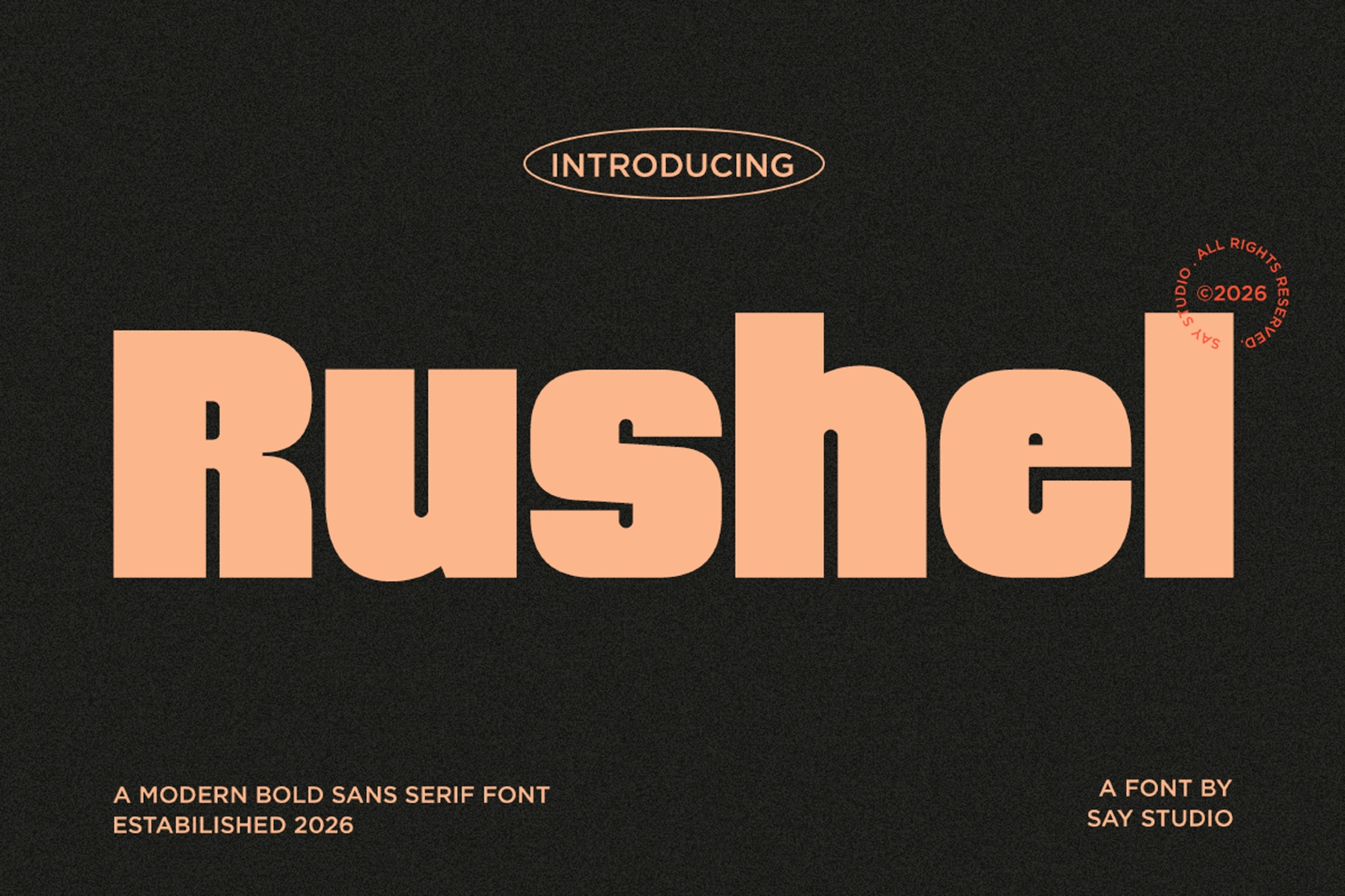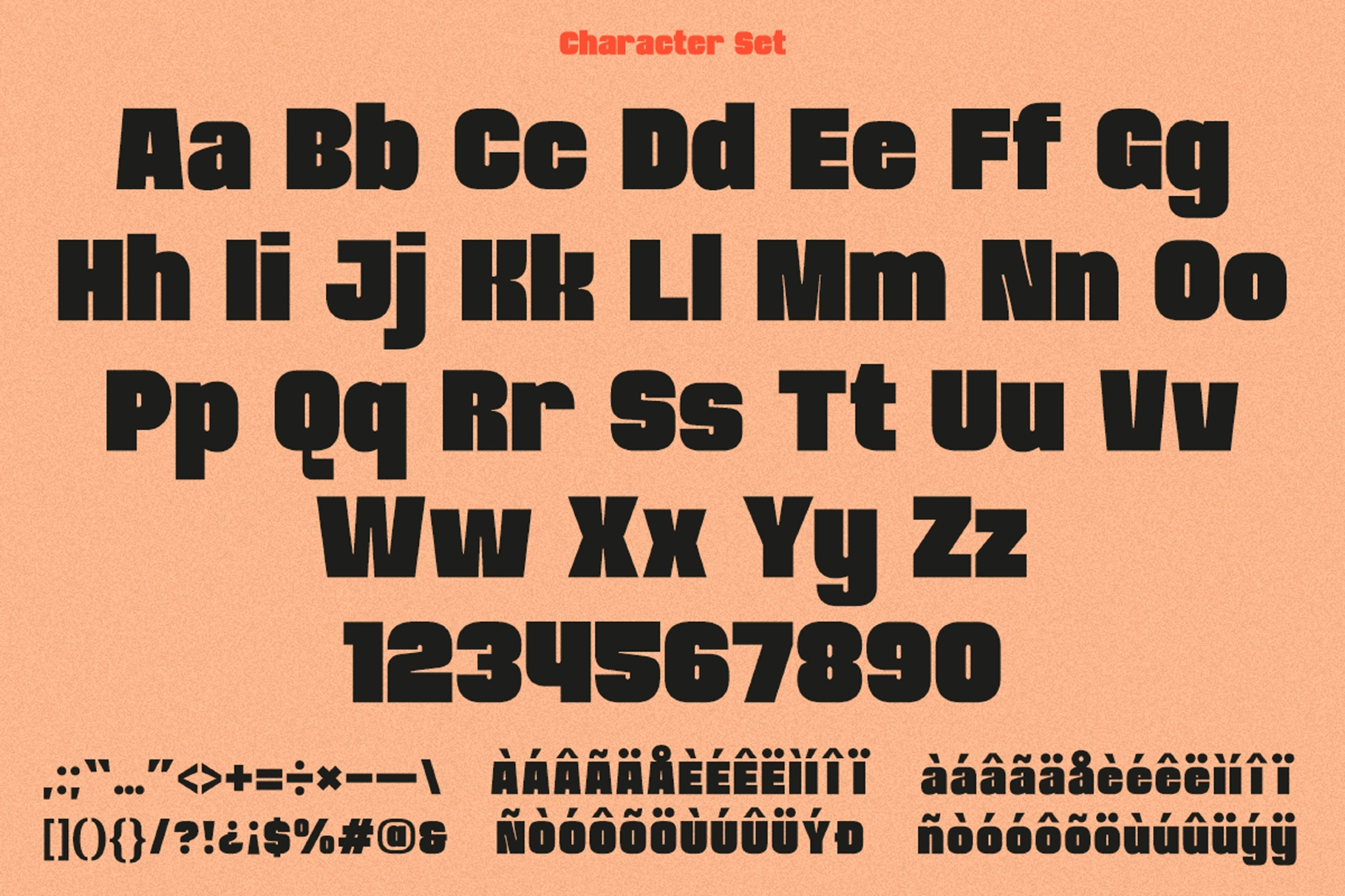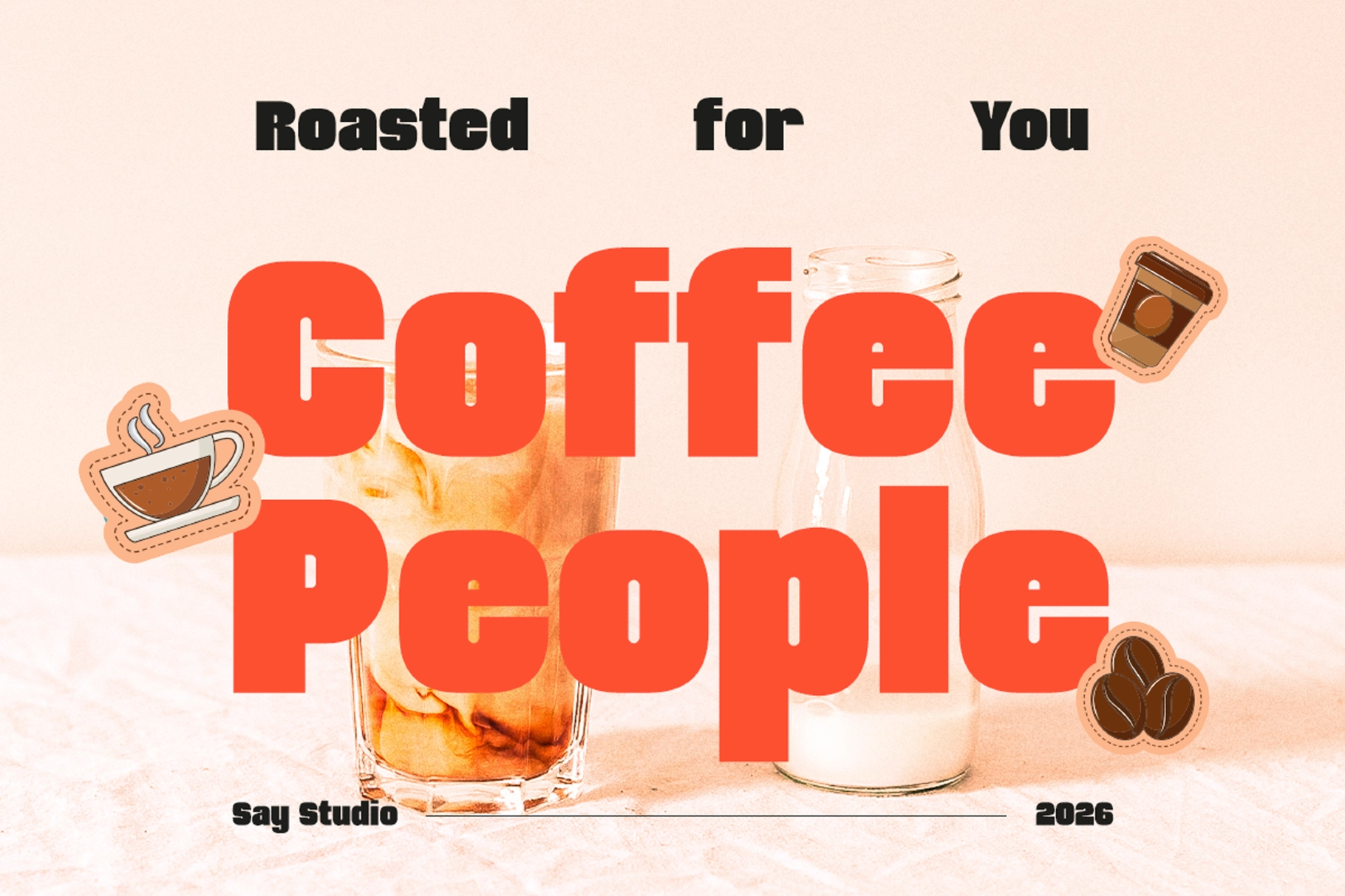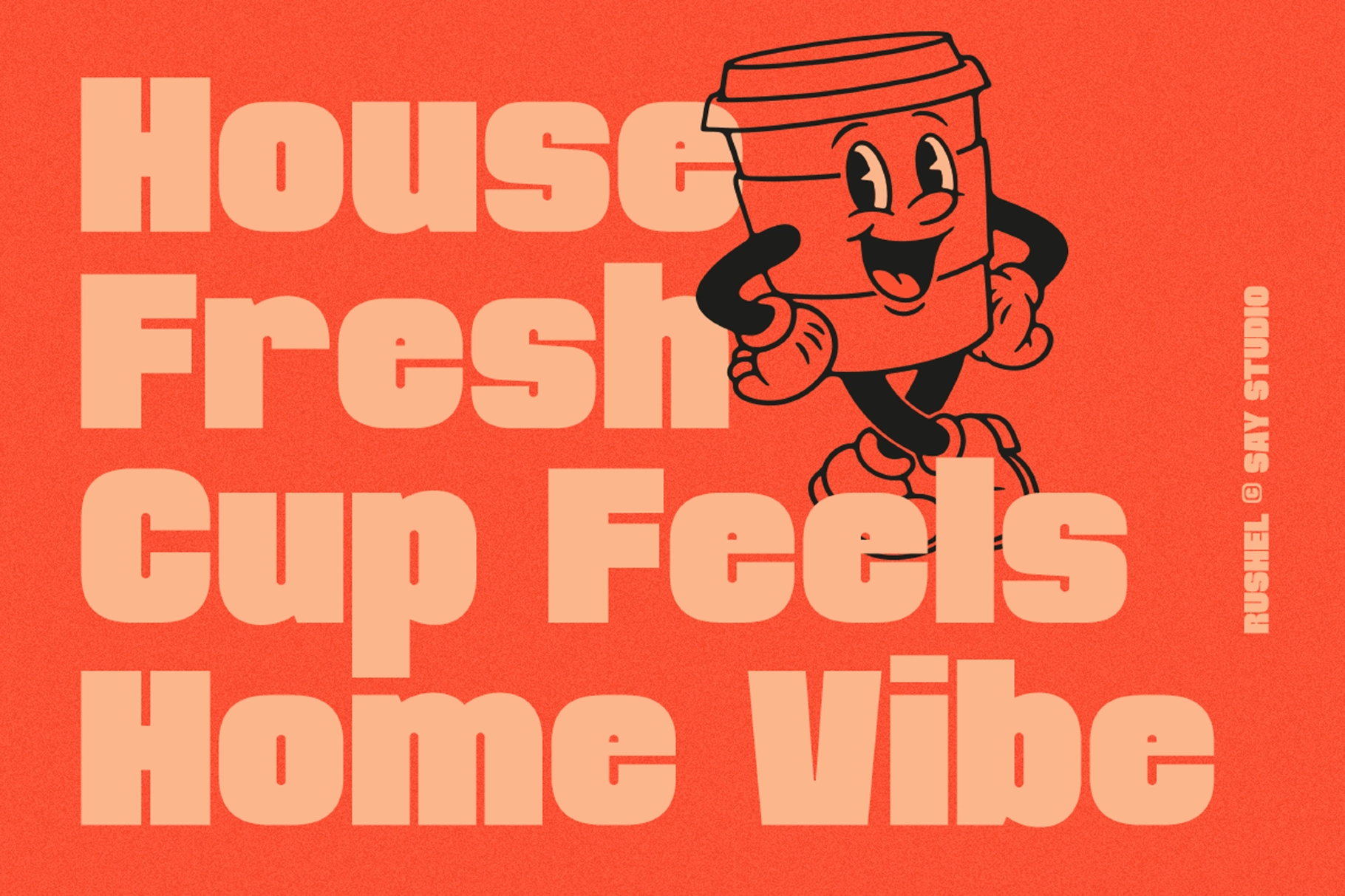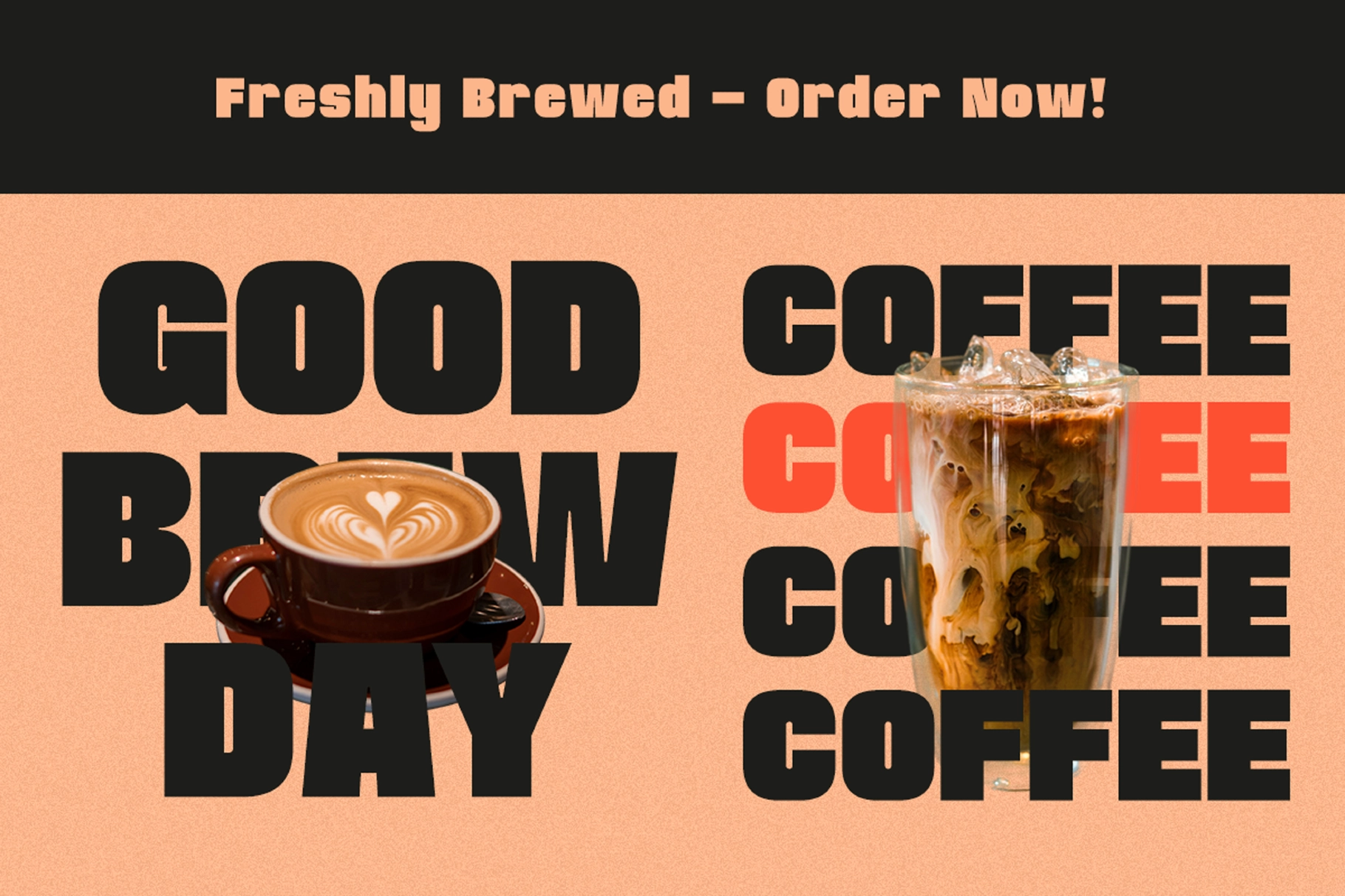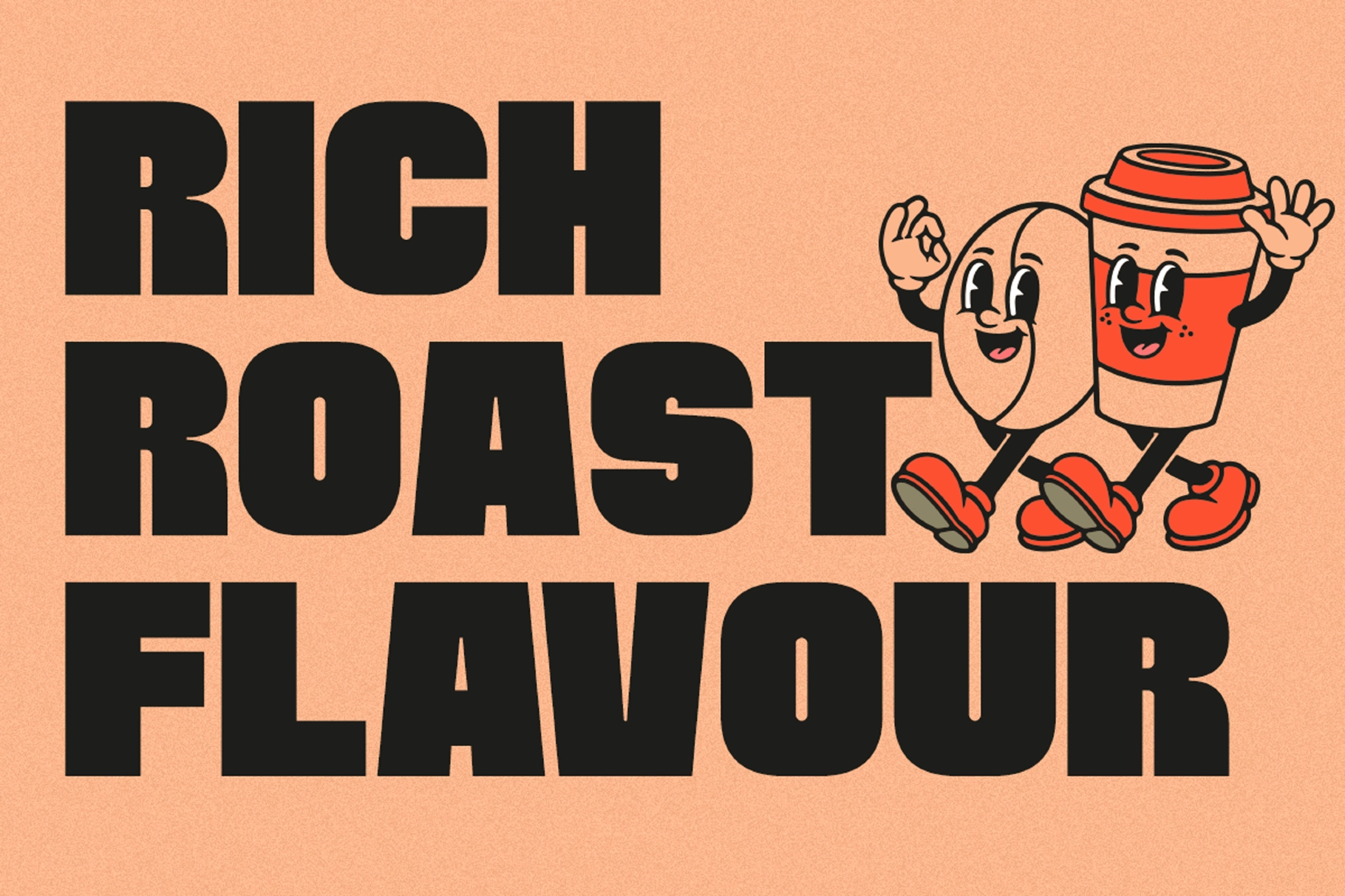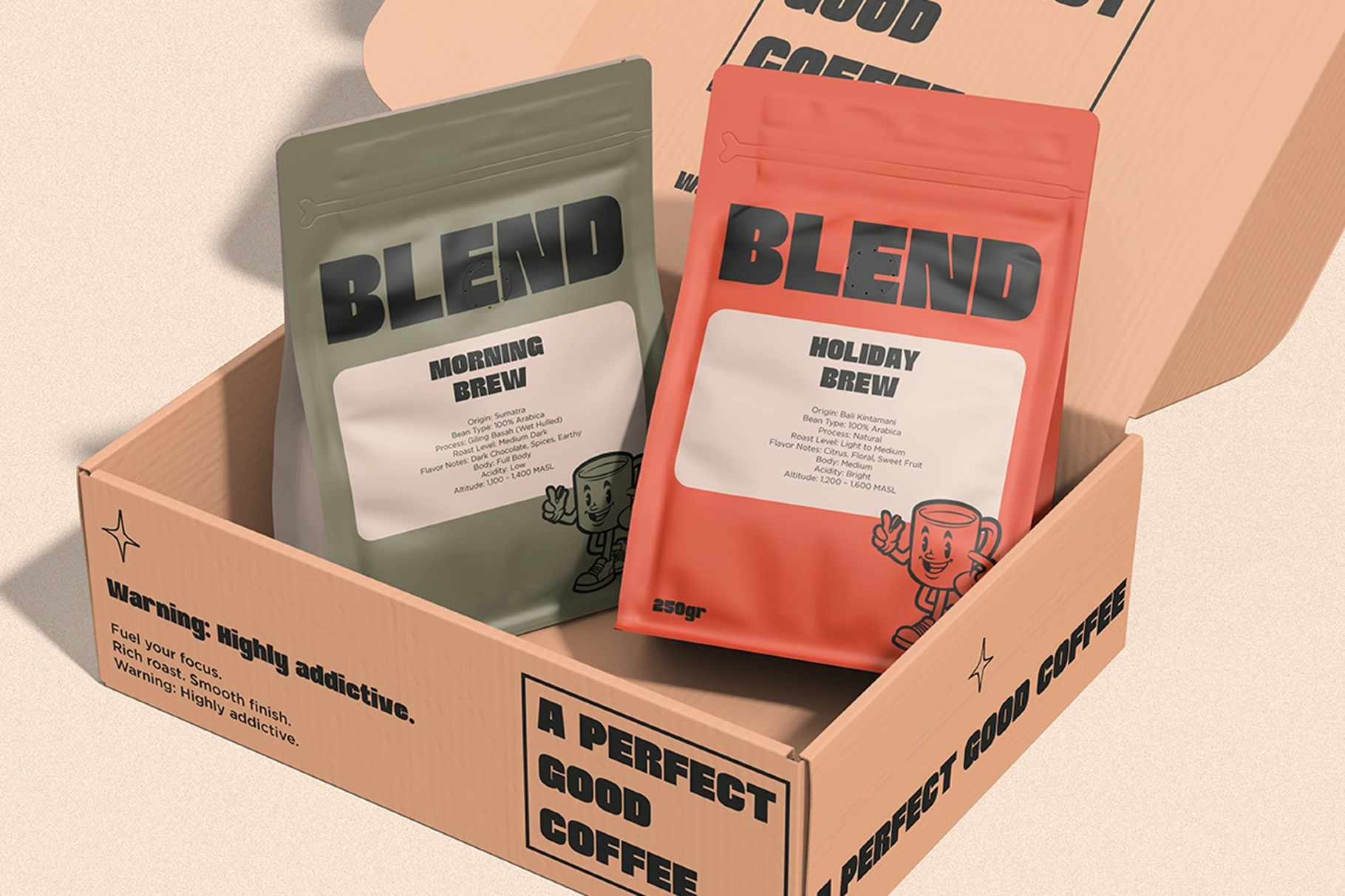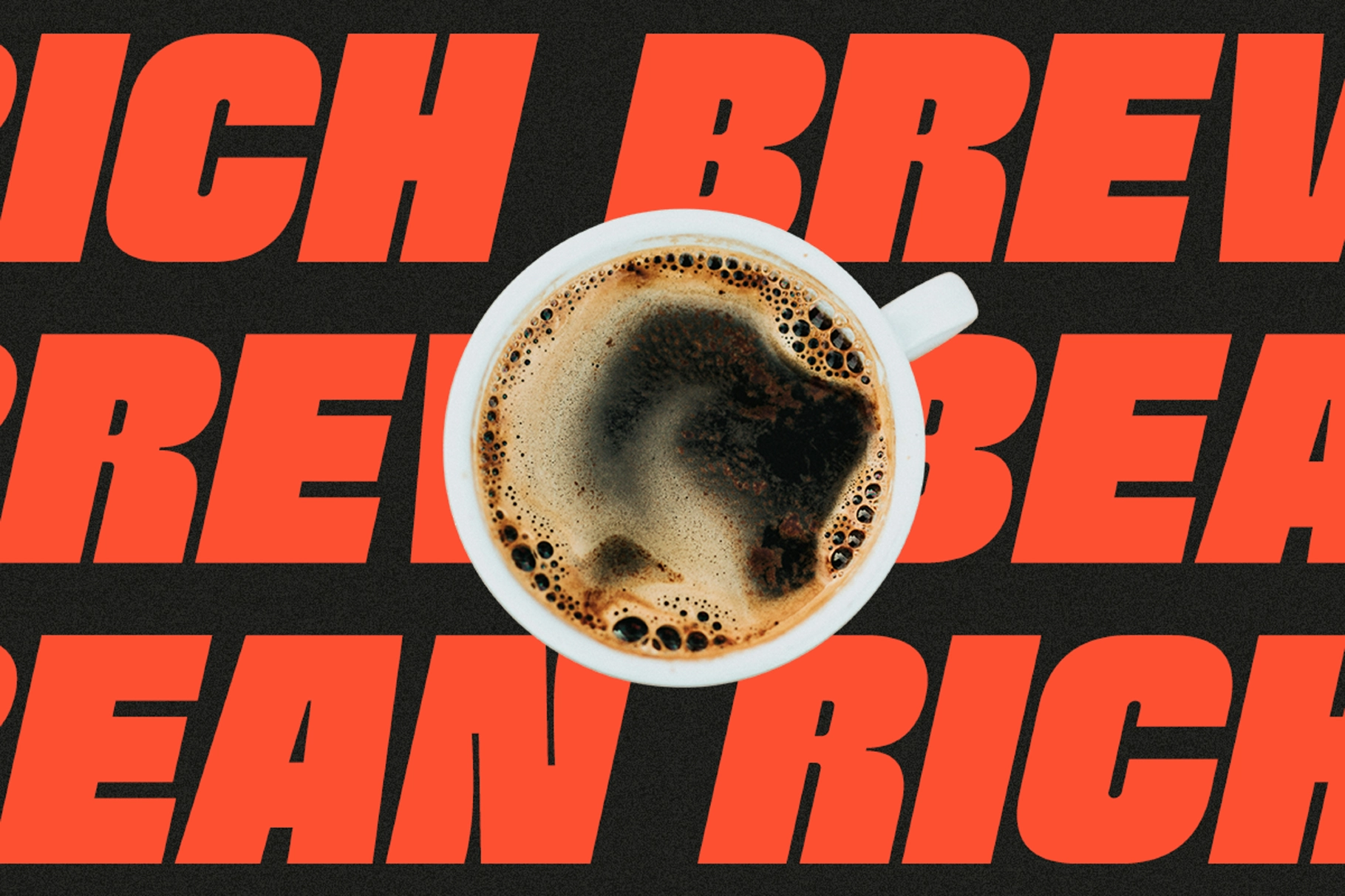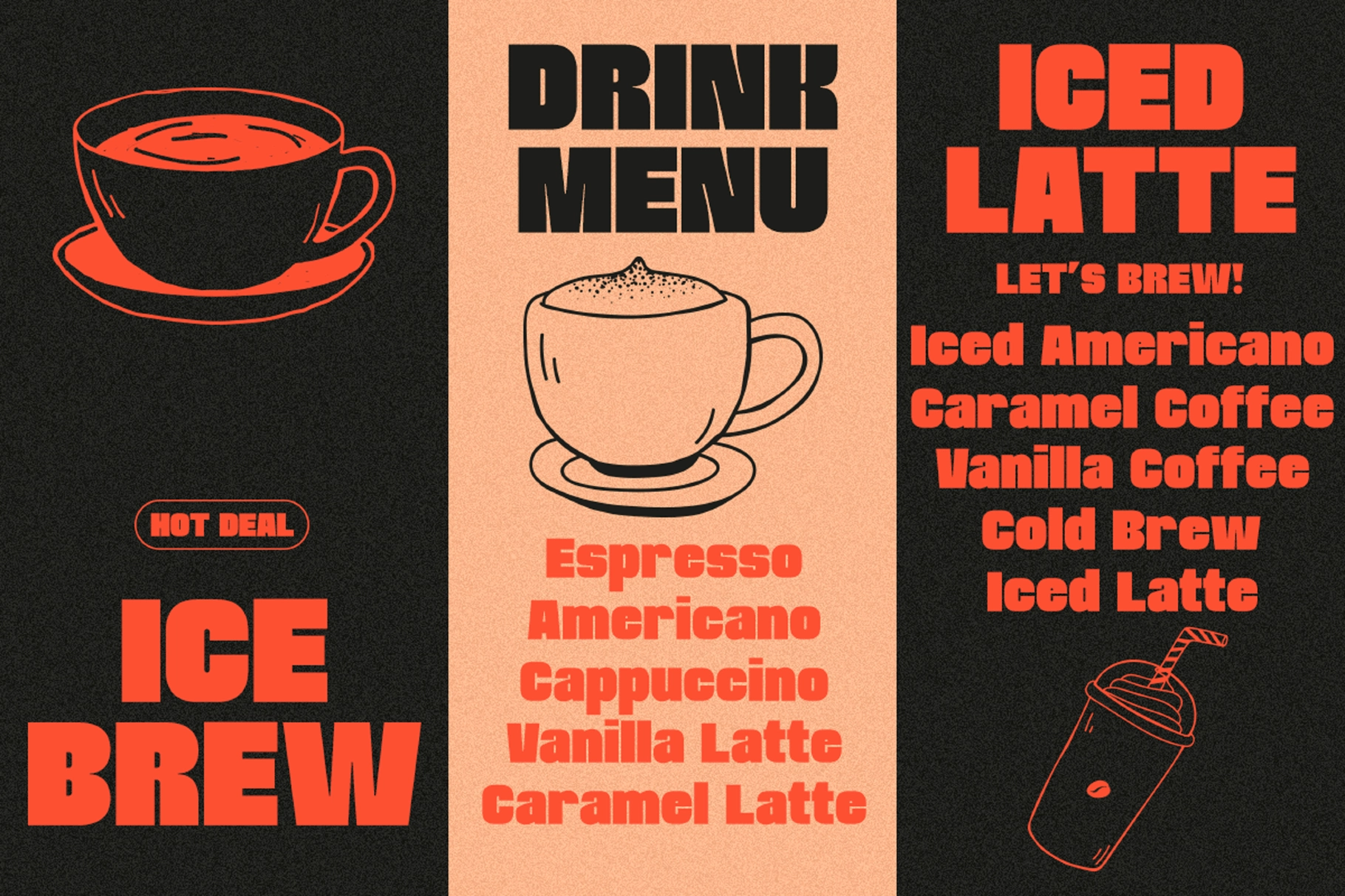
Rushel - Bold Sans Serif Font
This display typeface has a heavy block shape, rounded corners, and tight letterforms made for loud headlines. Its chunky rhythm gives posters, café menus, packaging, merch, and promo graphics a punchy editorial voice without losing readability.
Rushel works well for coffee shop branding, food posters, logo marks, social media announcements, streetwear graphics, event flyers, product labels, website headers, menu boards, stickers, and more. The character set includes uppercase, lowercase, numerals, punctuation, symbols, and multilingual glyphs, giving designers a practical toolkit for large-scale typography with plenty of personality.